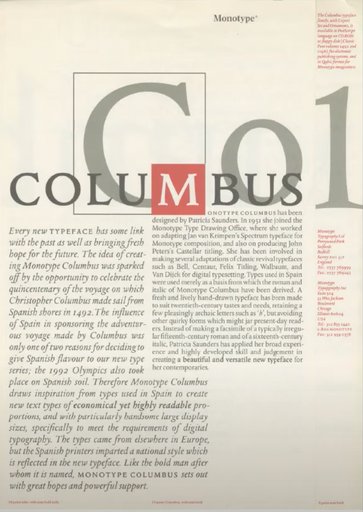
"Columbus" Typeface by Patricia Saunders
This typeface, Columbus, was designed by Patricia Saunders and her contributions at Monotype in the 1980s. As women worked in these type foundries as Type Drawing Office (TDO) members, they were constantly influencing the work that was created, and as time progressed since the formation of these fo…